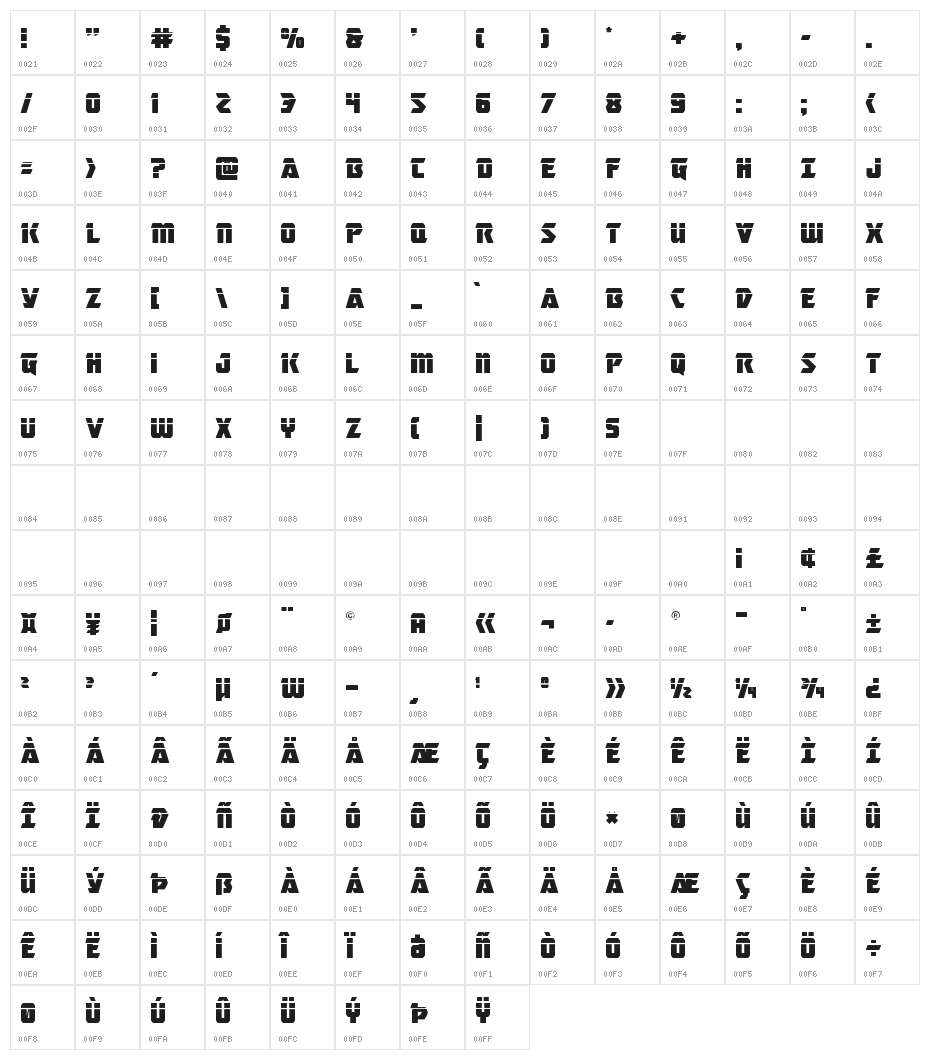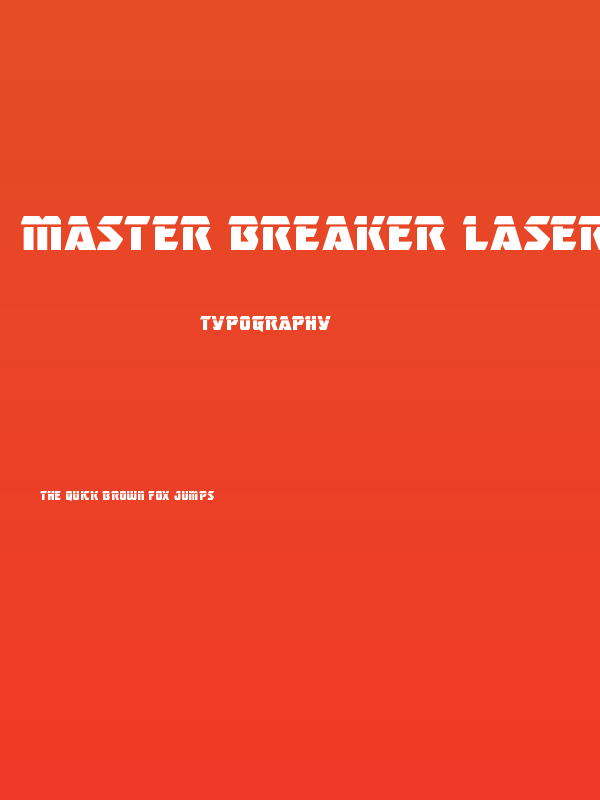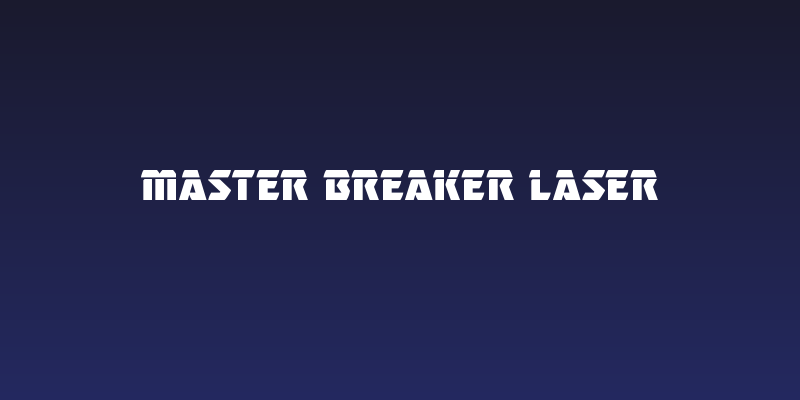
Master Breaker Laser Font
Master Breaker Laser Description
This font features a bold, geometric design with sharp angles and a futuristic aesthetic. The characters are constructed with thick, block-like shapes that give a sense of strength and modernity. The uppercase letters are particularly striking, with a uniform height and width that create a cohesive look. The lowercase letters maintain the same bold style, ensuring consistency across text. Numbers and special characters are designed to match the overall theme, making them ideal for attention-grabbing headlines or logos. The font's unique style makes it suitable for projects that require a modern, edgy appearance.